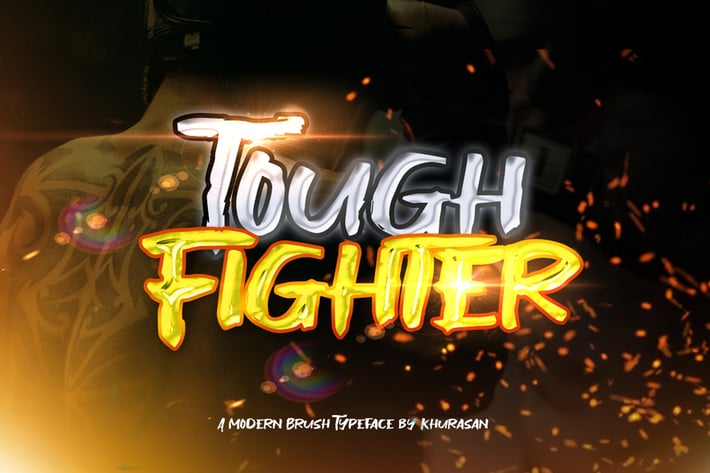
Tough Fighter Brush Font
The Tough Fighter is a fresh brush font, elegant and modern feel character set. The Tough Fighter font includes a full set capital and lowercase letters, as well as multi-lingual support, swashes, numerals, & punctuation.